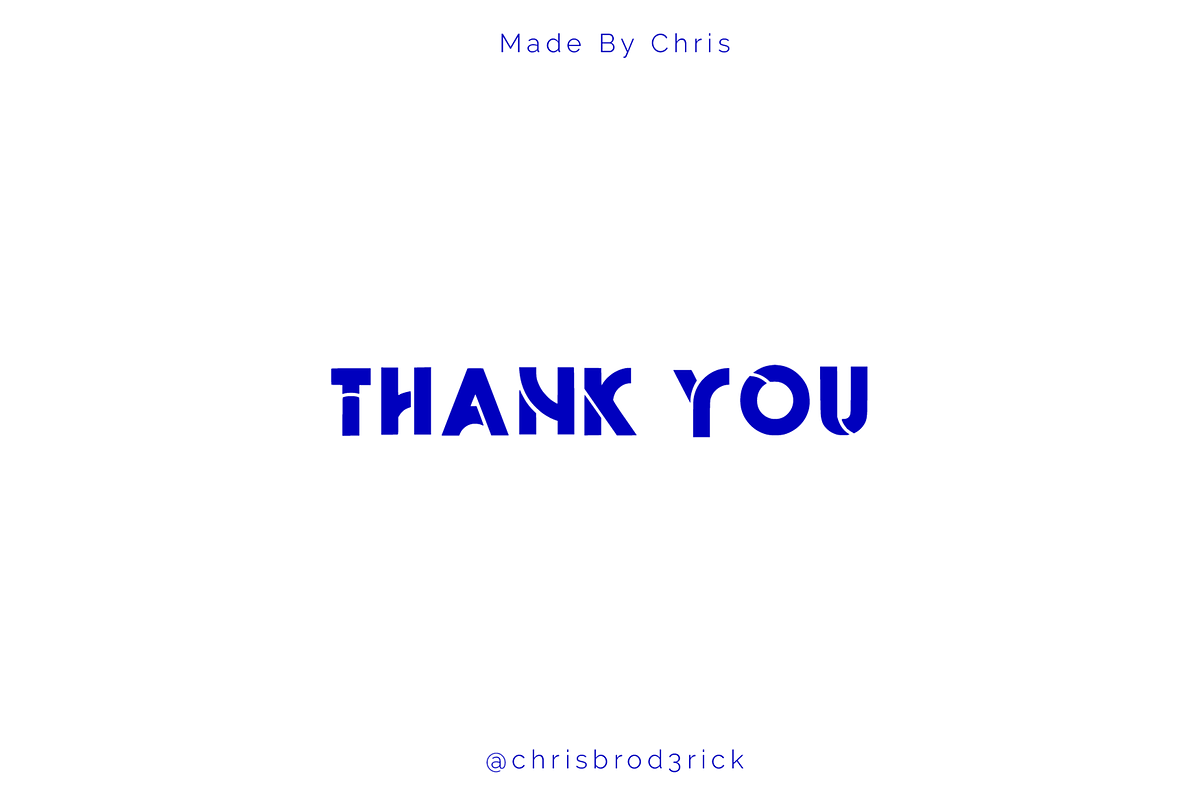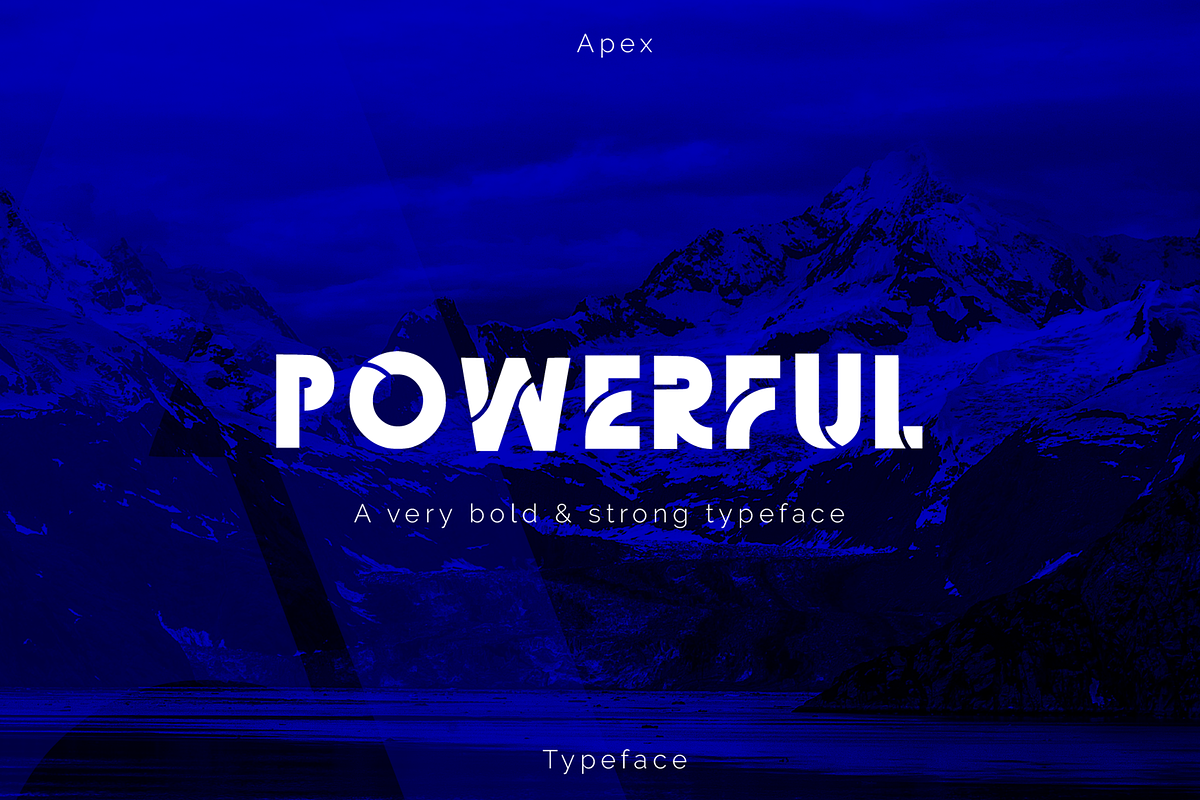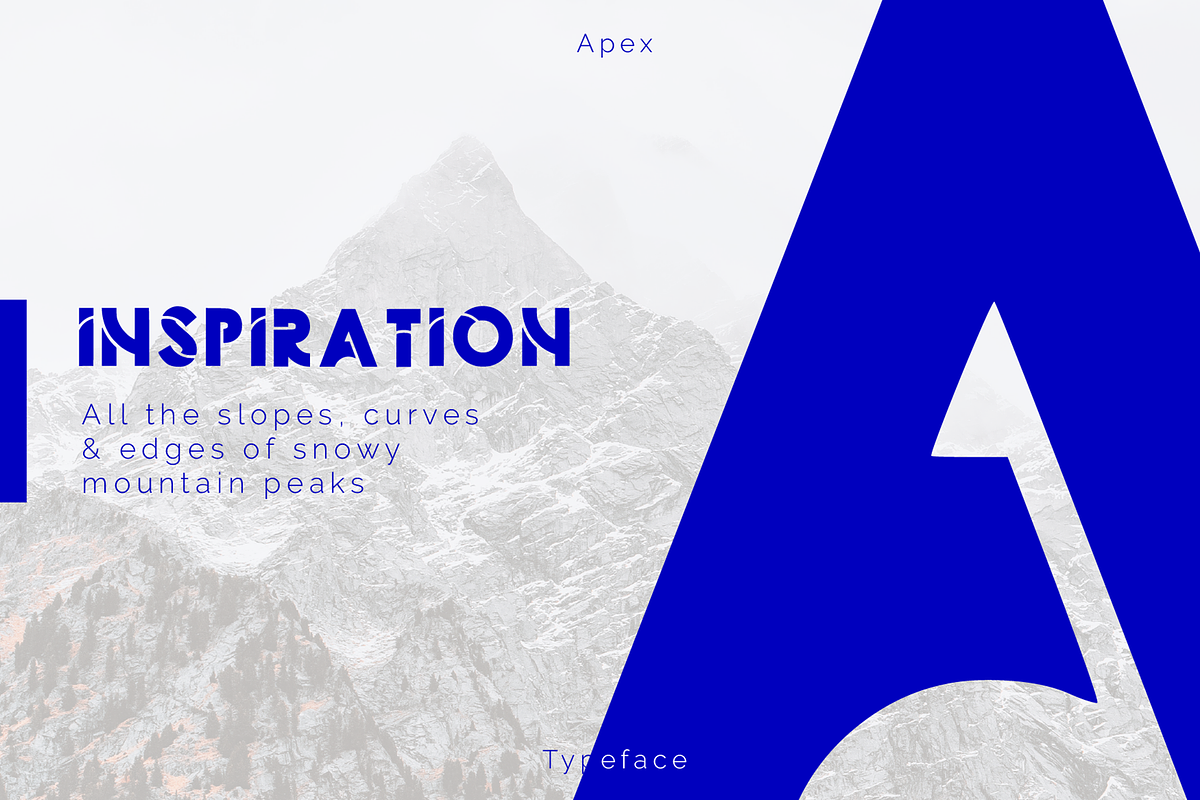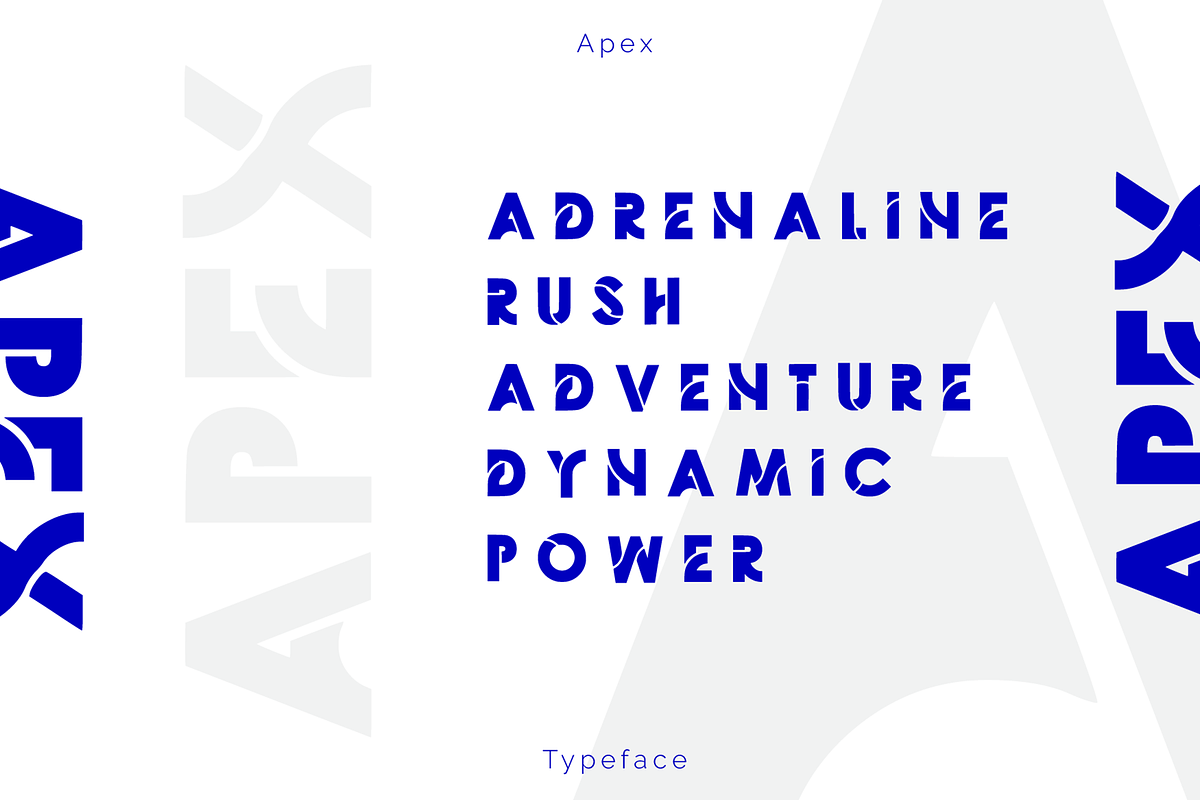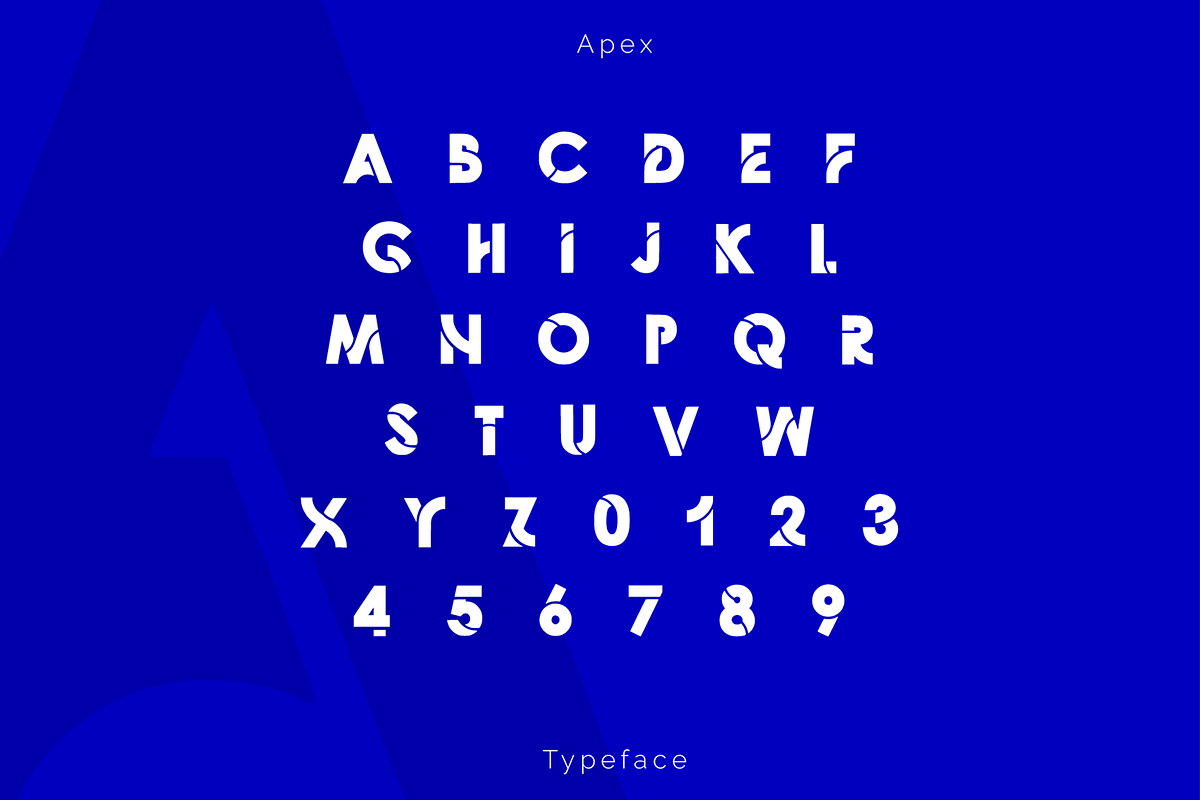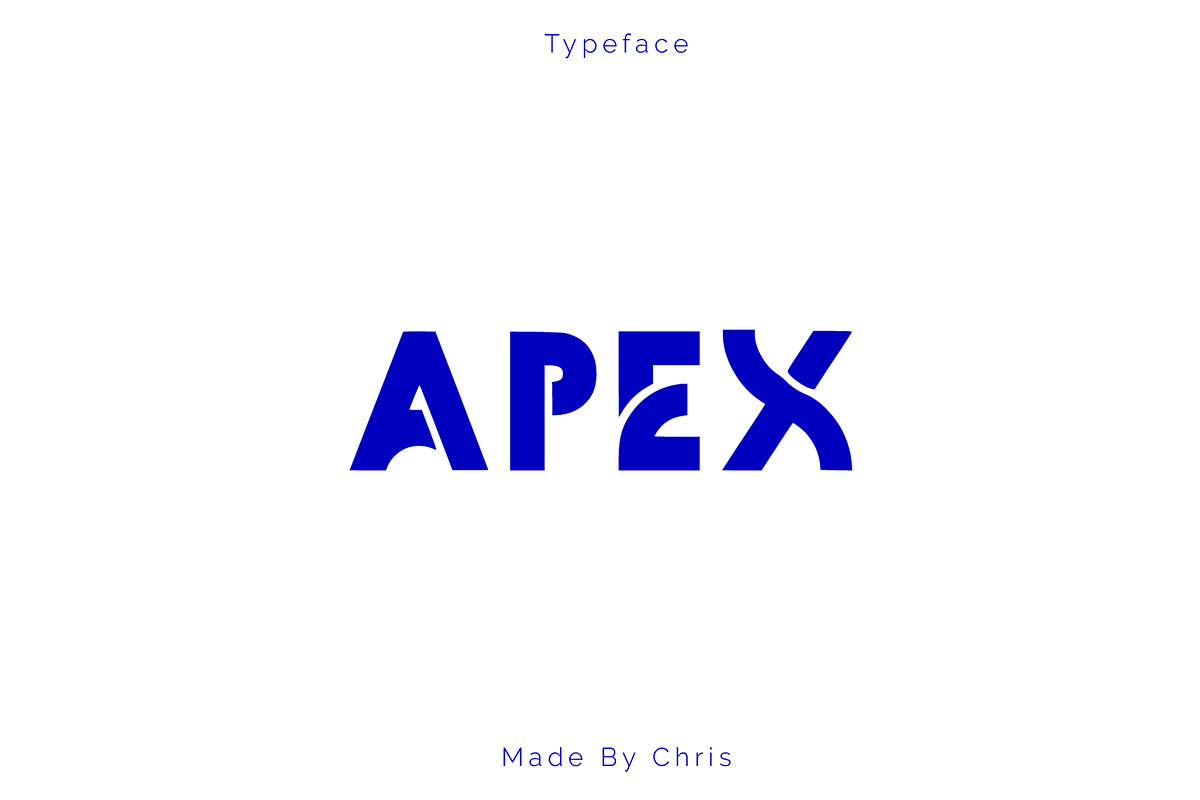
Apex Typeface
A font inspired by all the slopes, curves & edges of snowy mountain peaks.
Apex Typeface by Chris Broderick fits naturally into Branding, posters, packaging, typography.